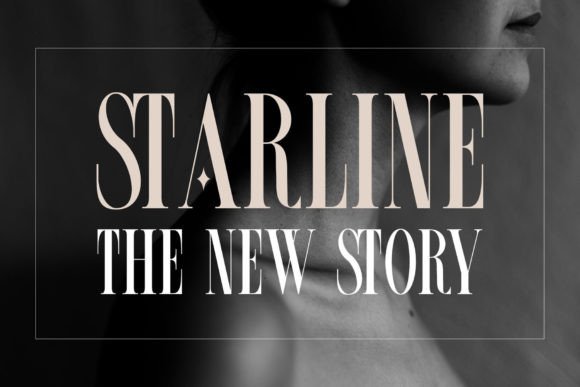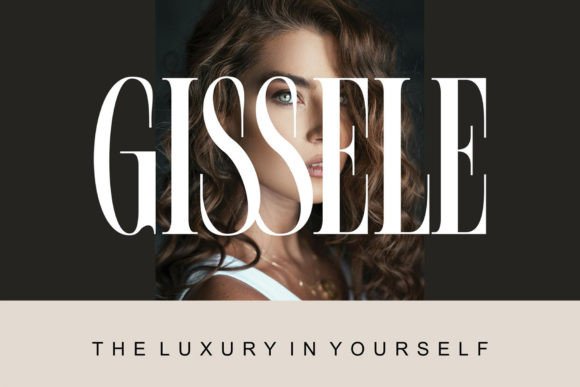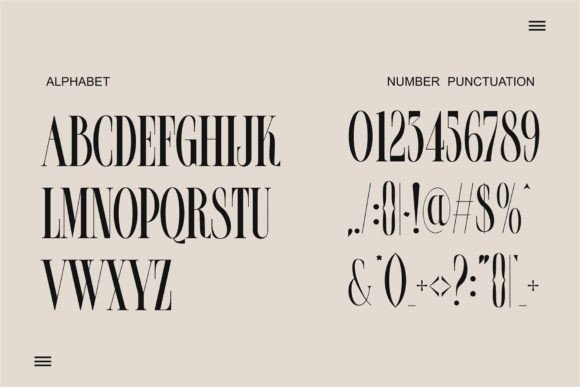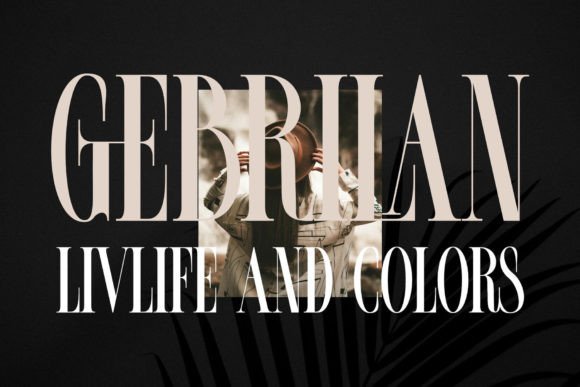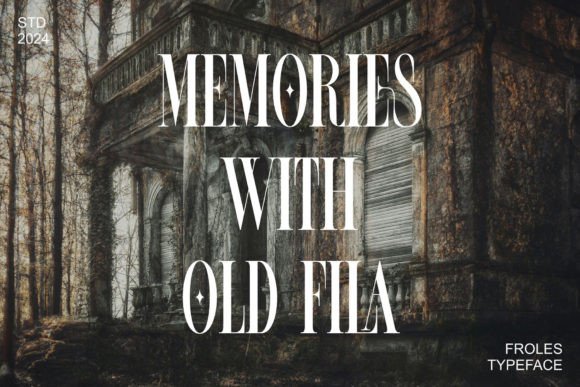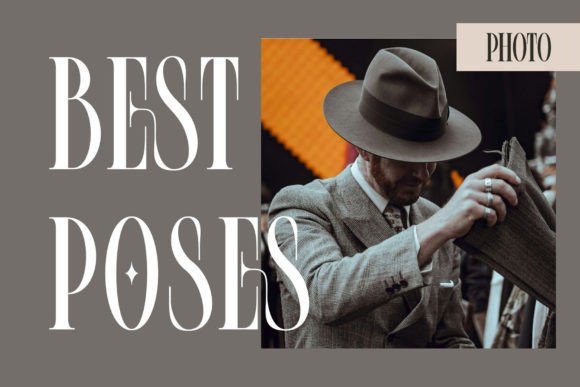
The Froles Font: Elevate Your Designs with Modern Serif Elegance
I’ll never forget the struggle I faced while working on a branding project for a luxury skincare client. The brief was clear: create an elegant, high-end feel that exudes sophistication. But, as I scrolled through my font library, I found myself stuck. That’s when I stumbled upon the **Froles Font**, a modern serif typeface that instantly resonated with my design vision. In this article, I’ll share my experience with Froles, its features, and how to make the most of it in your designs.
An Honest Review of Froles Font
- ✨ Clean and minimalist aesthetic: Froles boasts a crisp, modern look that instantly elevates any design.
- ✅ Versatile and adaptable: From brochures to logos, Froles seamlessly integrates into various design projects.
- 💡 Excellent for body text and headlines: Its clear, readable design makes it perfect for both short and long-form content.
While Froles is an excellent font, there are a few minor considerations:
- 🤔 Limited italic variations: Froles offers some italic styles, but it’s not as extensive as other fonts.
- ⚠️ Requires OpenType features support: To access advanced typographic features, ensure your design software supports OpenType.
A Practical Guide to Using Froles Font
Exploring Froles’ Backstory and Designer Inspiration
Froles was inspired by the minimalist logo design movement, which emphasizes simplicity and elegance. The font’s creator aimed to craft a typeface that embodies modern sophistication, perfect for luxury brands and high-end designs. By combining classic serif elements with a contemporary twist, Froles offers a unique and captivating visual identity.
| Font Name | Froles Font |
| Author | Alfinart |
| Does Froles support OpenType features? | Yes, Froles offers advanced OpenType features, including stylistic alternates and glyphs. |